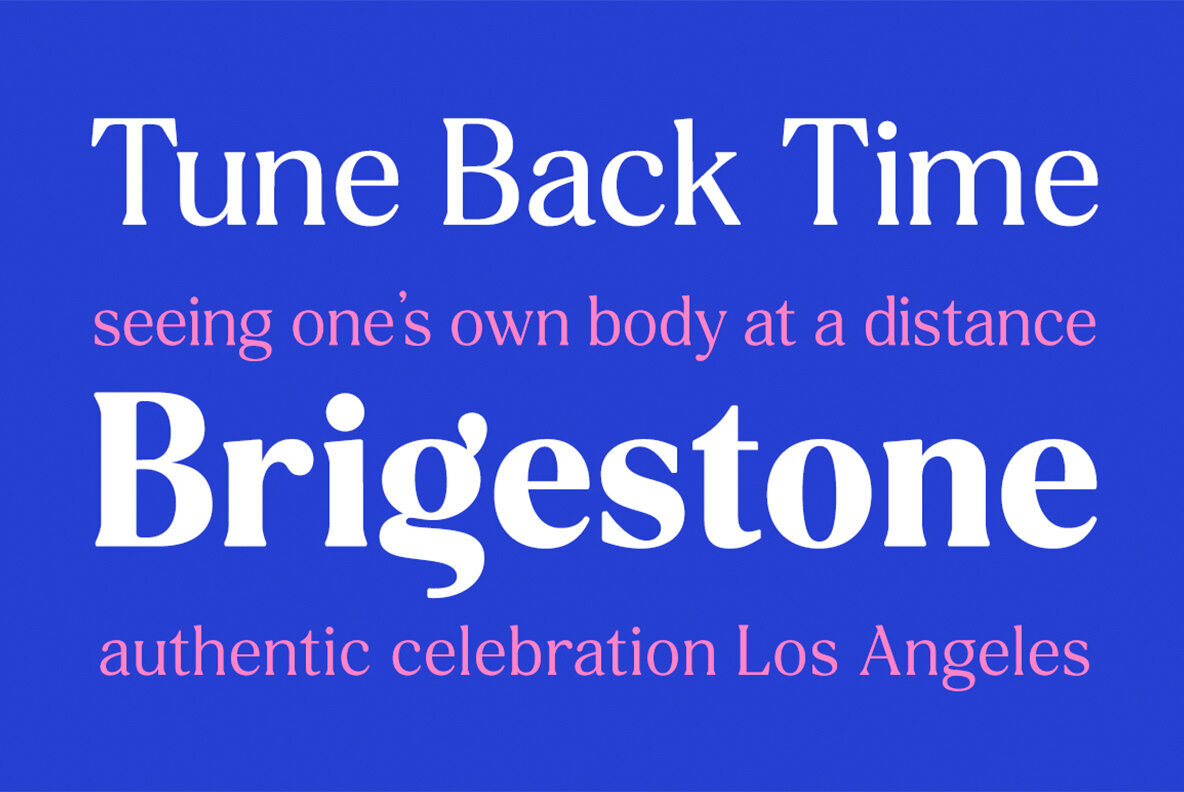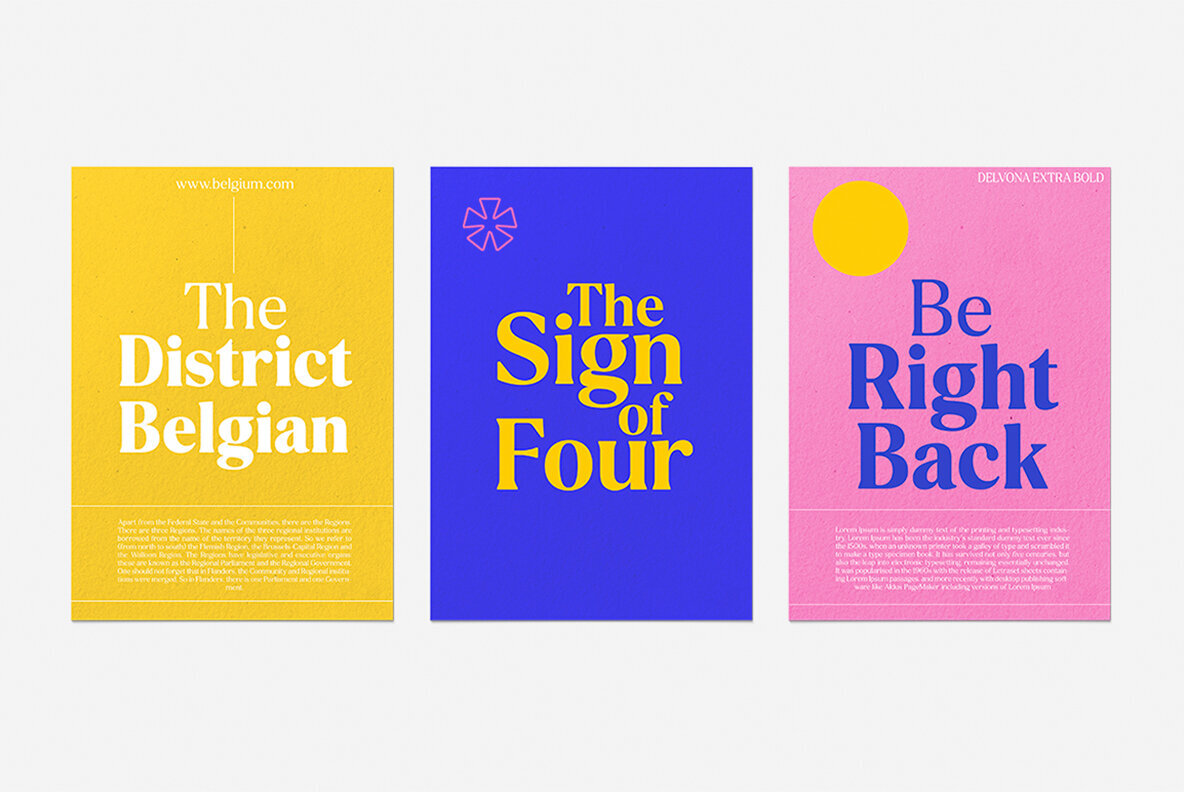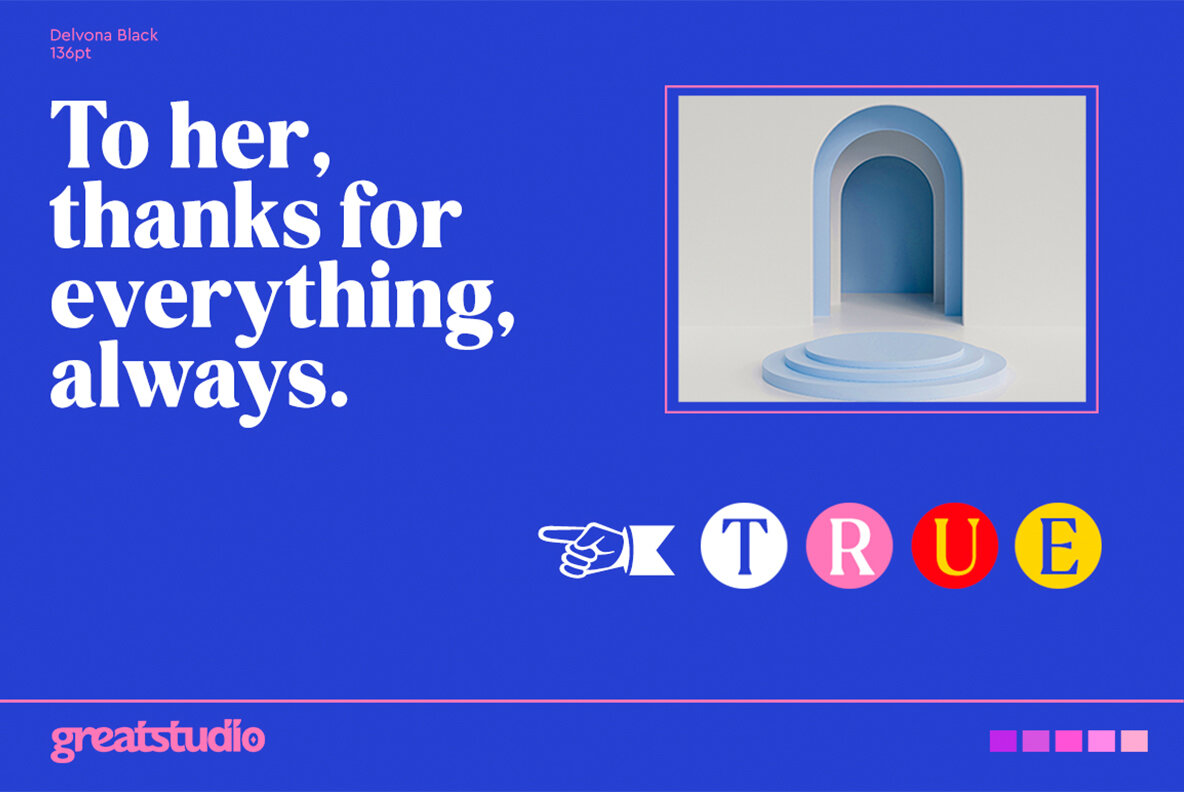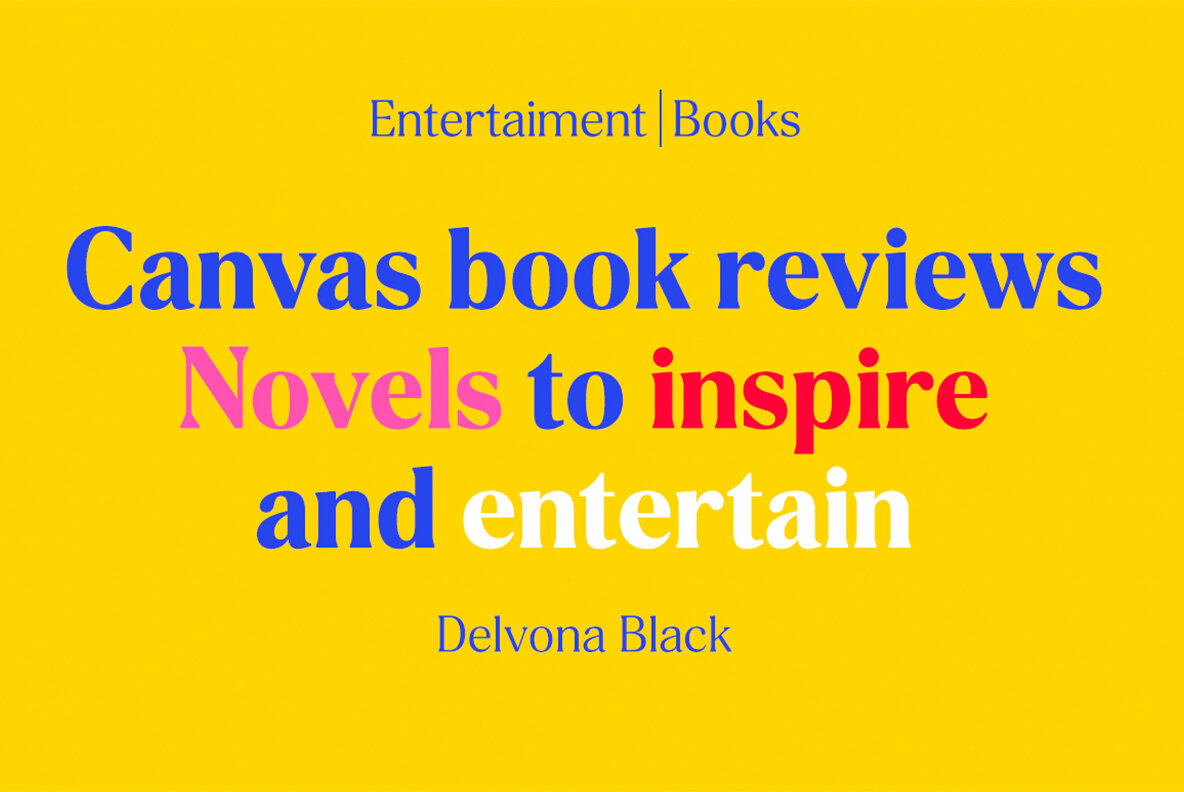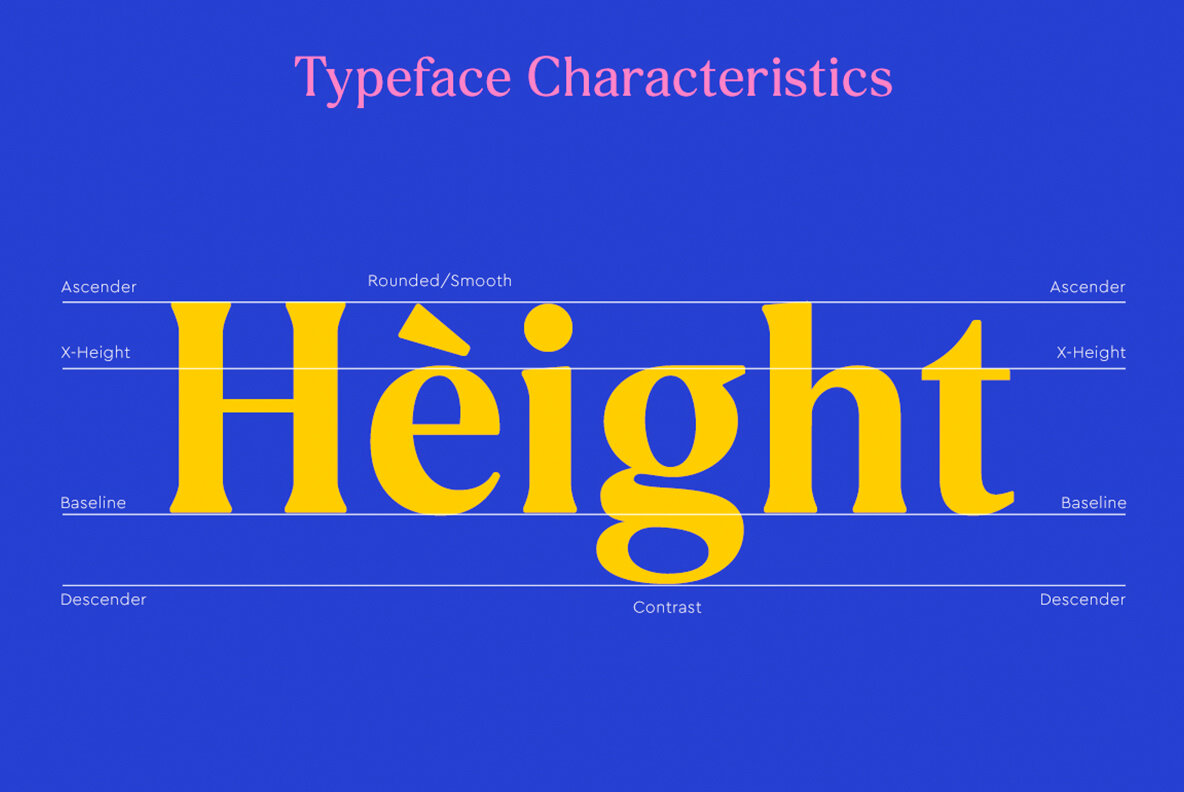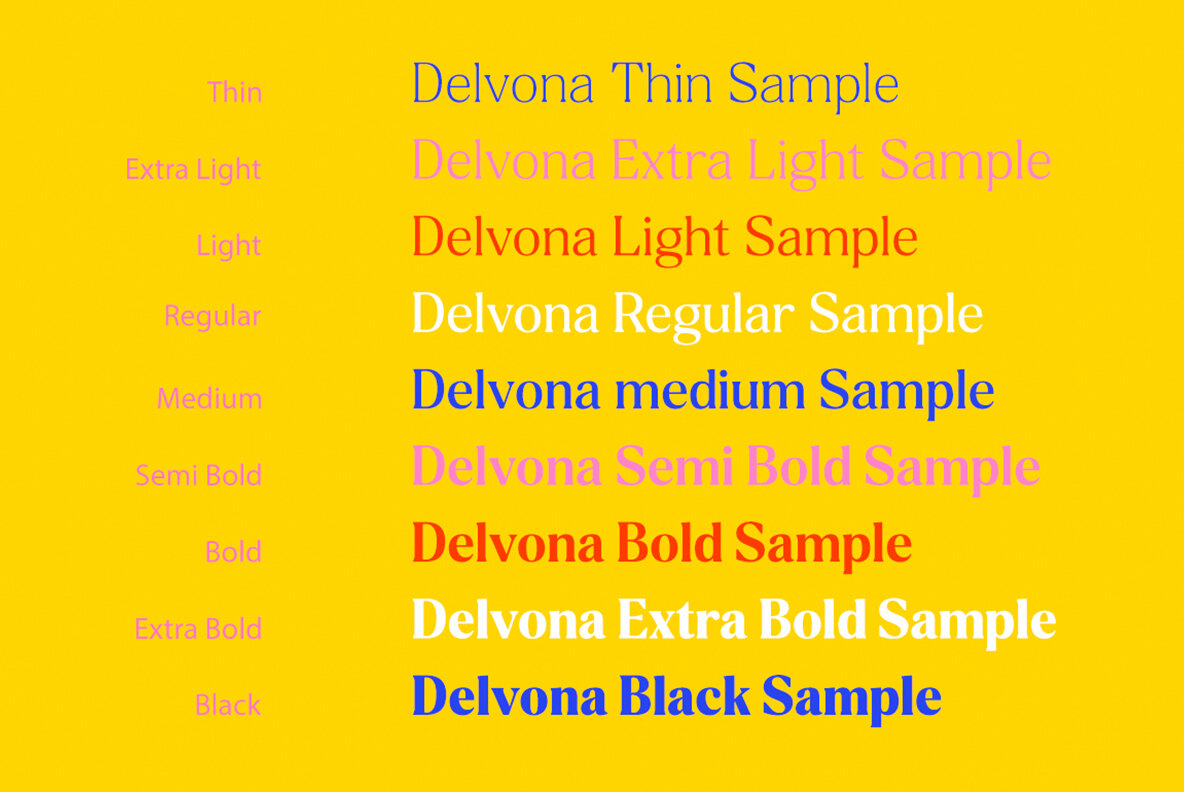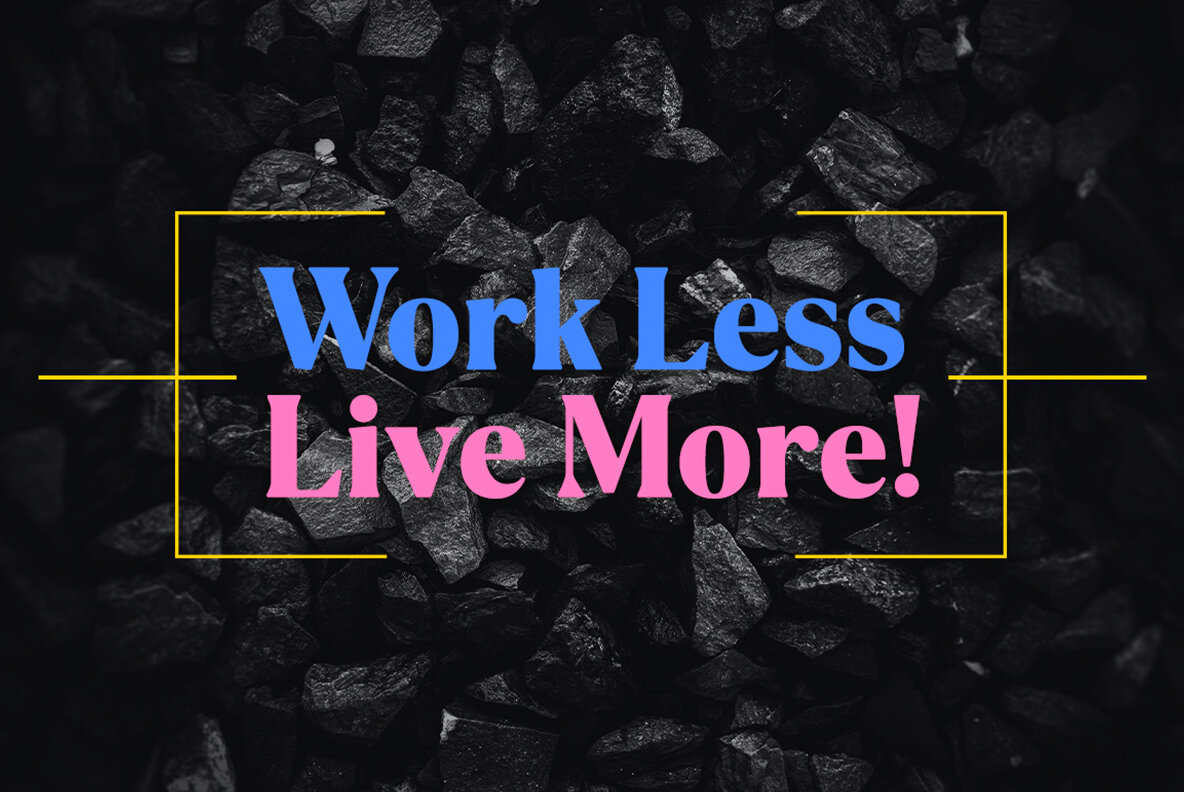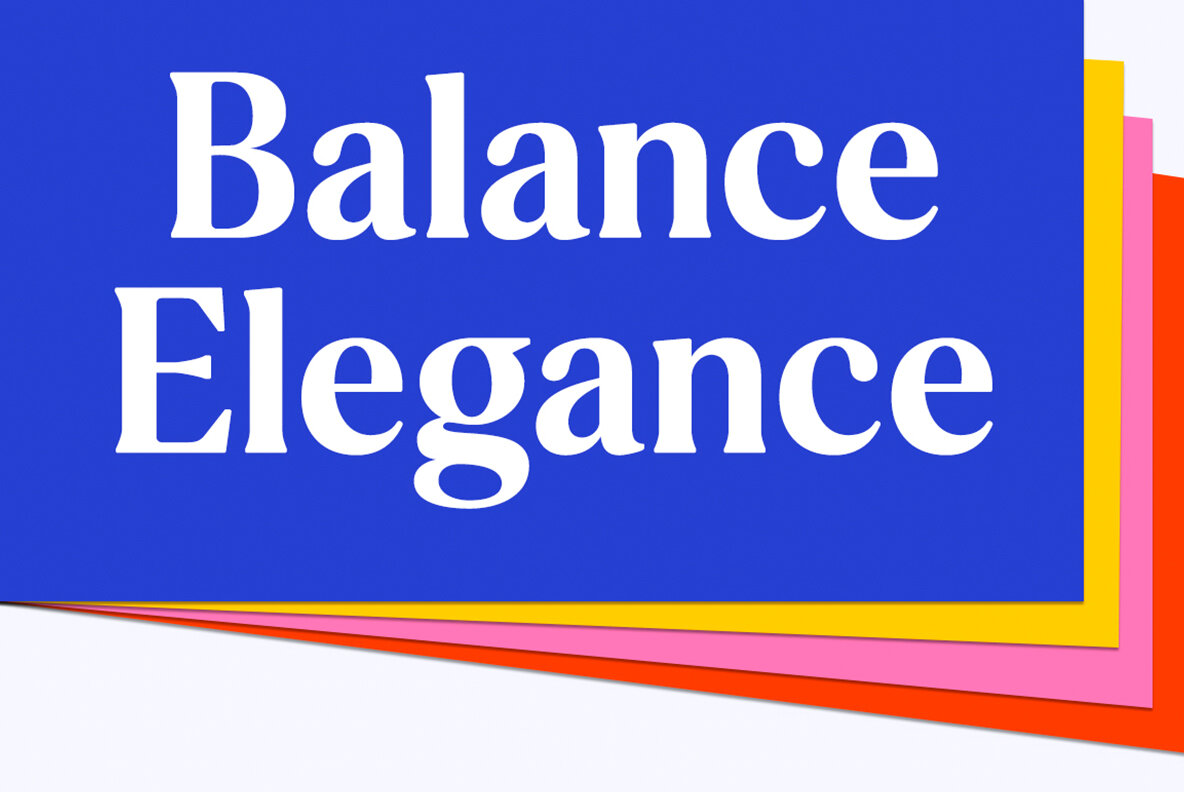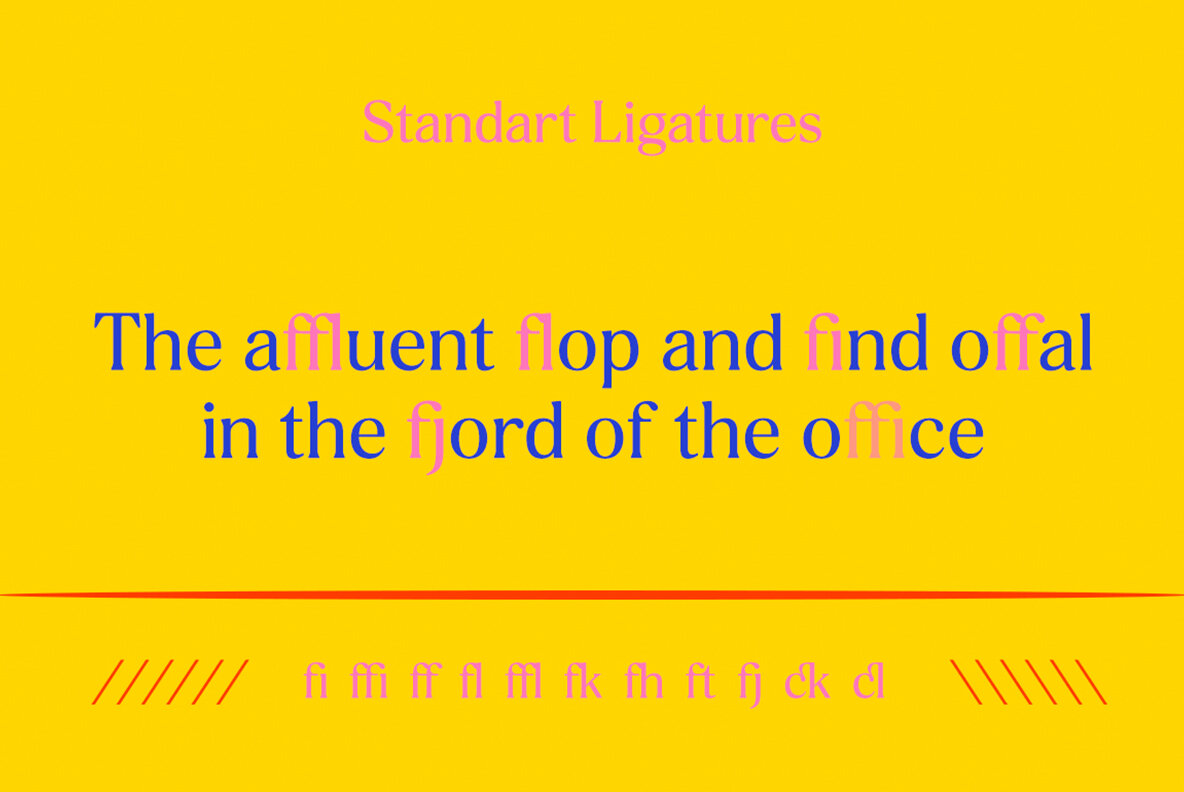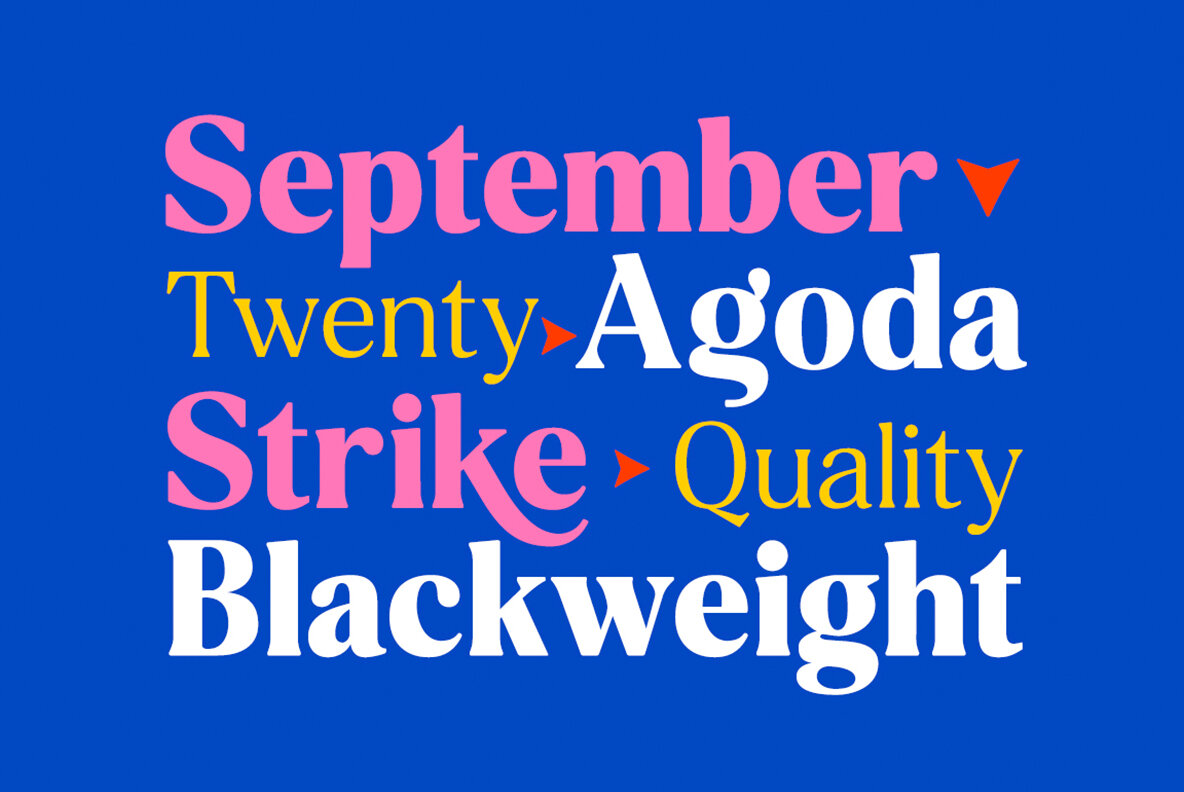
Delvona Font
Delvona by Great Studio presents a contemporary serif typeface with a retro flair that exudes both bold personality and gentle charm. Its high contrast and uncomplicated shapes render it easily readable, making it ideal for various applications—particularly where clarity is paramount. Drawing inspiration from the serif typography that graced 1980s editorial headlines, Delvona offers a classic aesthetic with modern sensibilities.Delvona: A Retro-Inspired Contemporary Serif